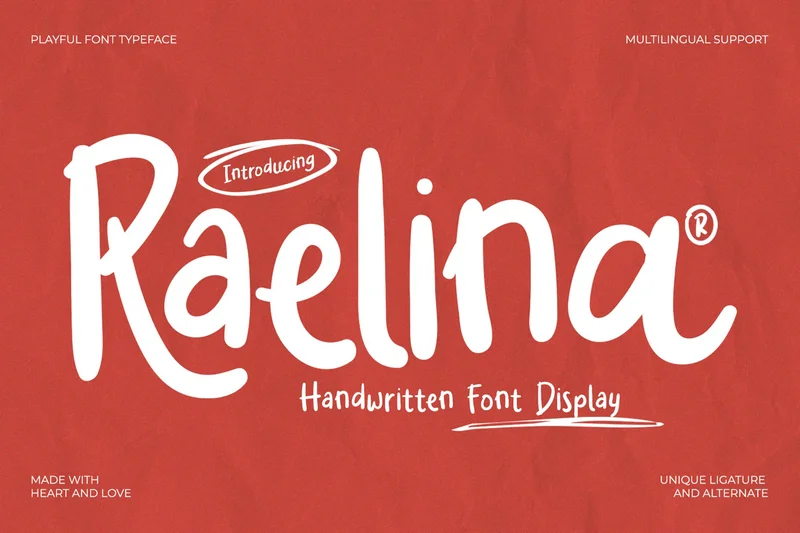
Raelina – Handwritten Font Display
Raelina is a cheerful handwritten font display that brings a sense of joy and personality into every letterform. With its soft curves, natural stroke, and whimsical rhythm, Raelina feels like a warm note from a friend—making it the perfect choice for designs that want to feel heartfelt, fun, and approachable. This font was lovingly crafted to add a casual charm to your branding, packaging, children’s books, or lifestyle designs.
Handcrafted Ligatures
Playful Alternates
Unique Character Flow
Coffee shop branding
Bakery and homemade packaging
Children’s book titles
Wellness and lifestyle quotes
Social media posts
Greeting cards and stationery